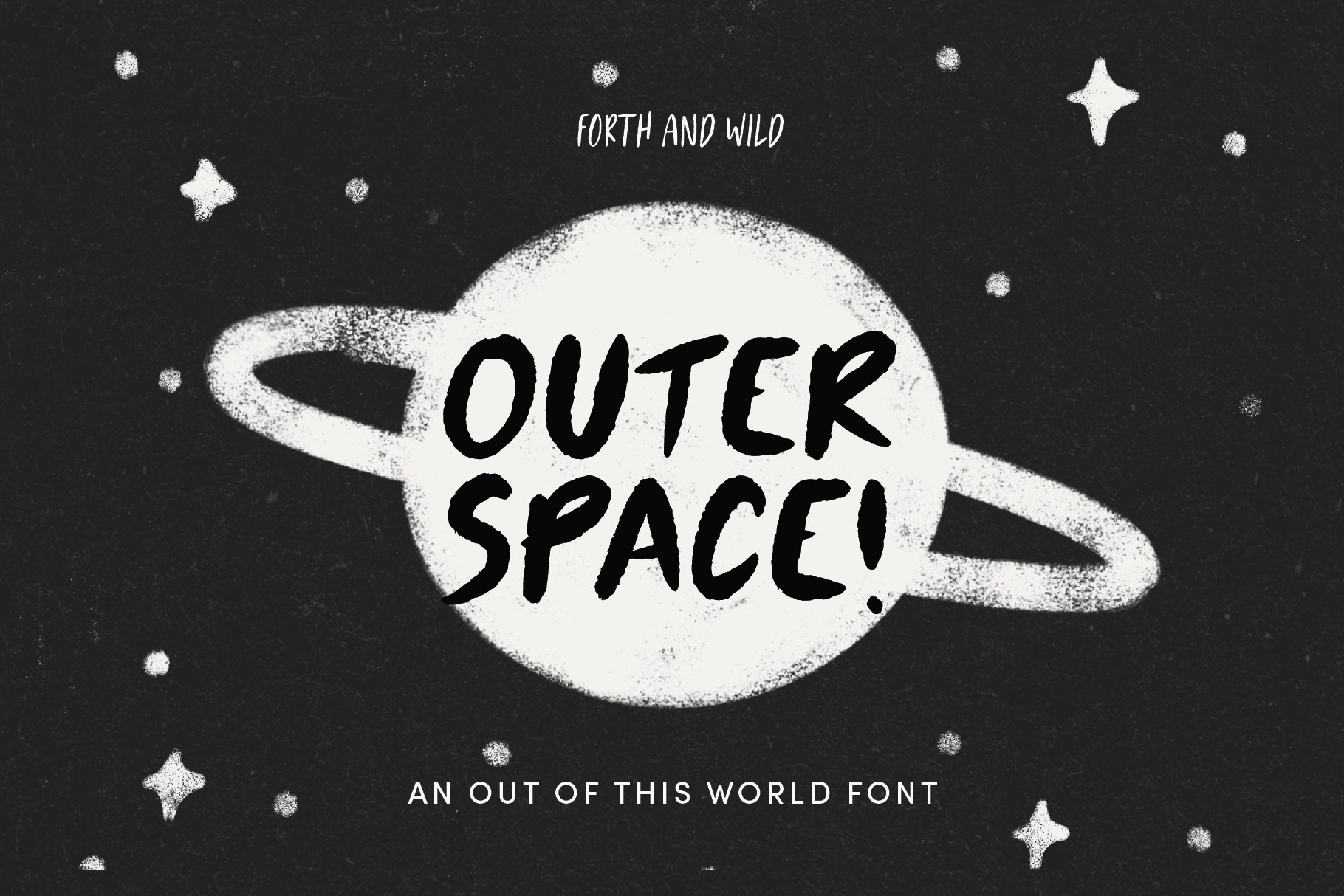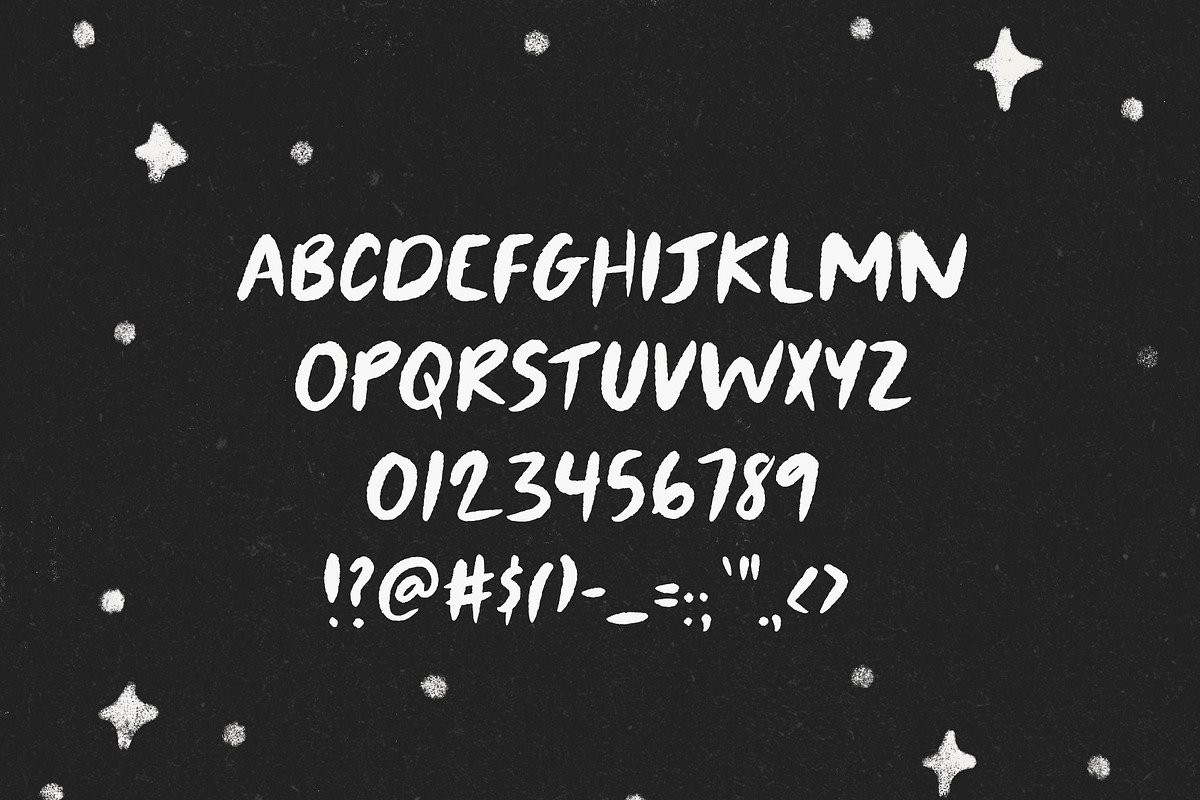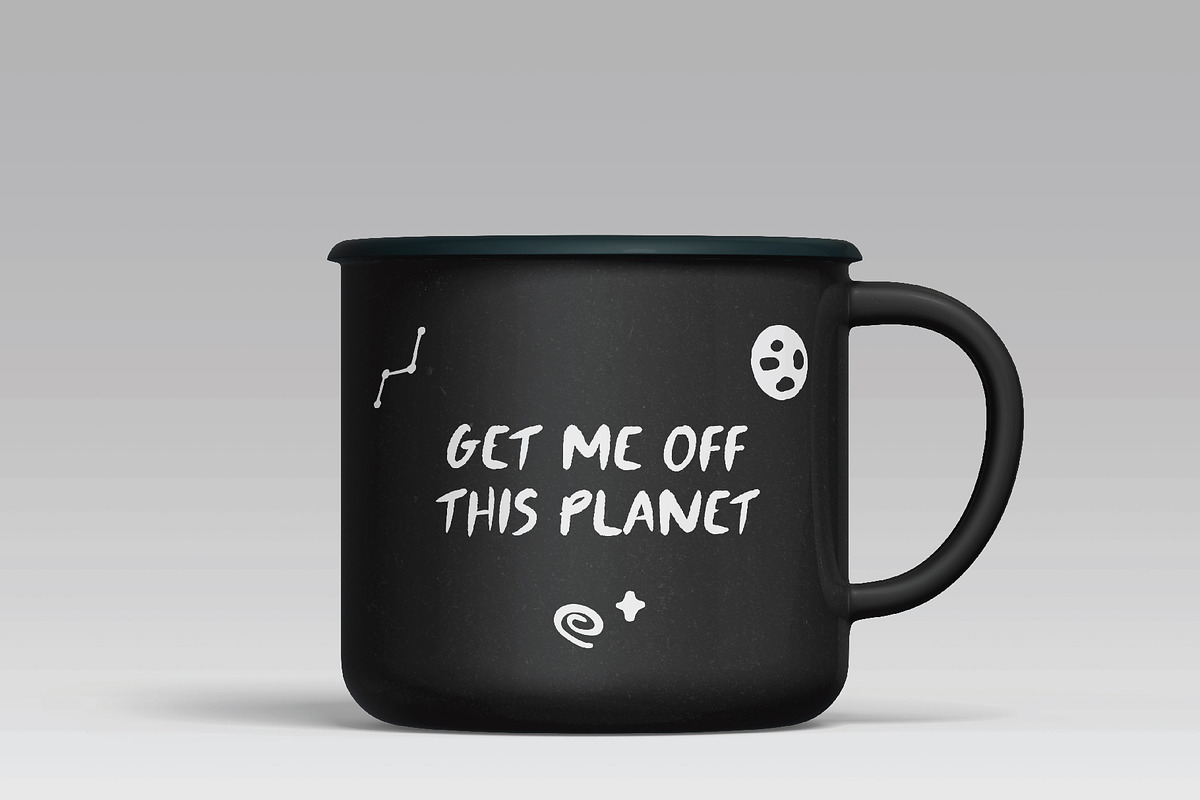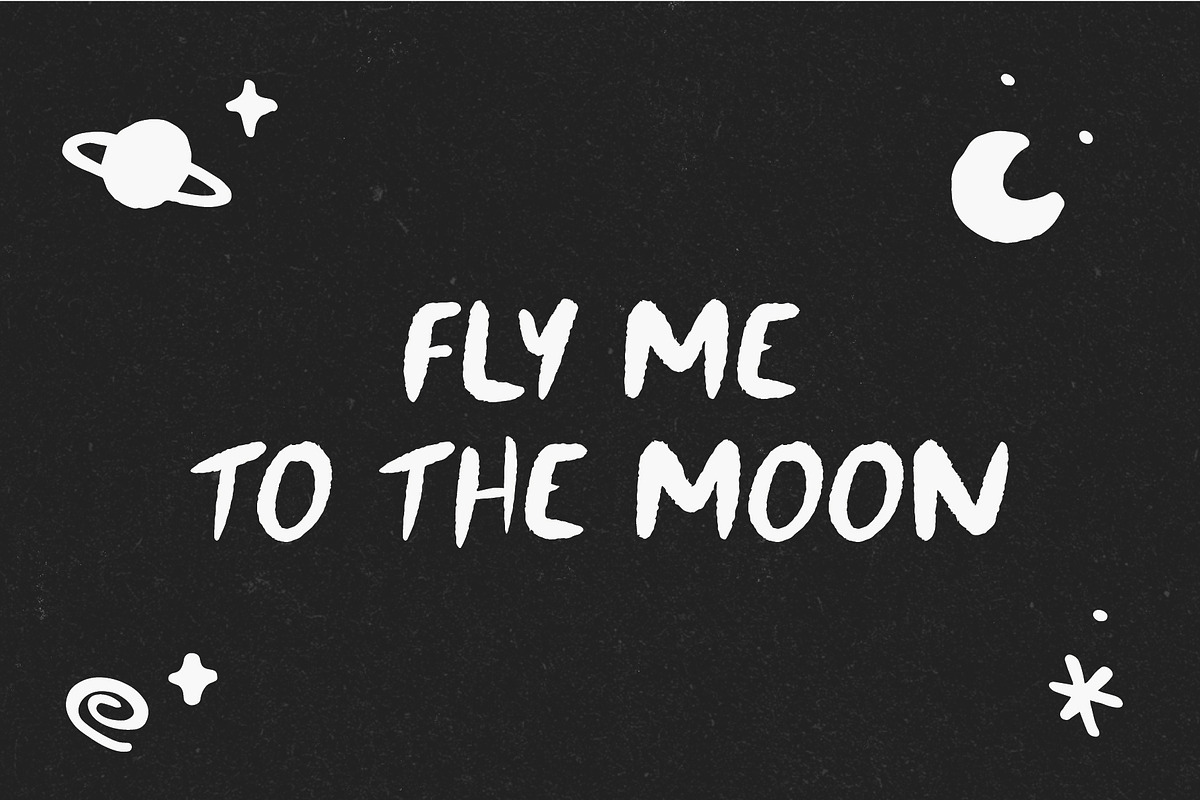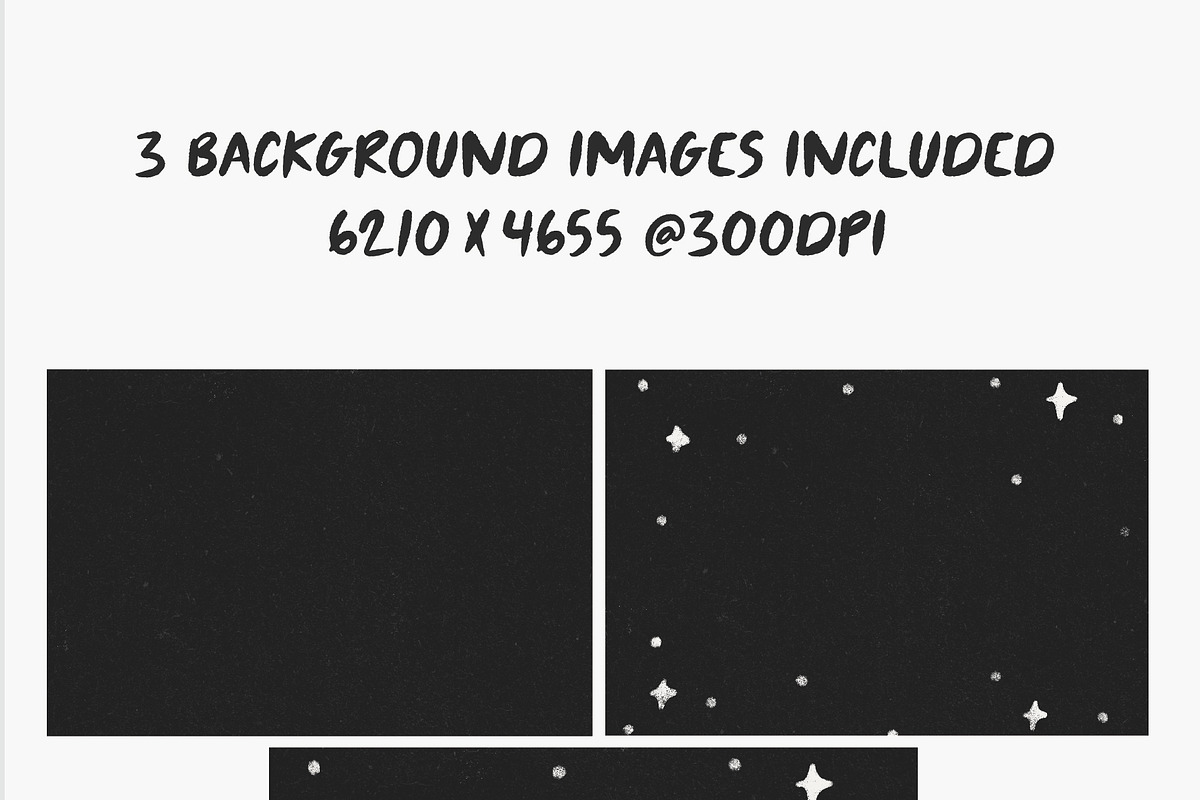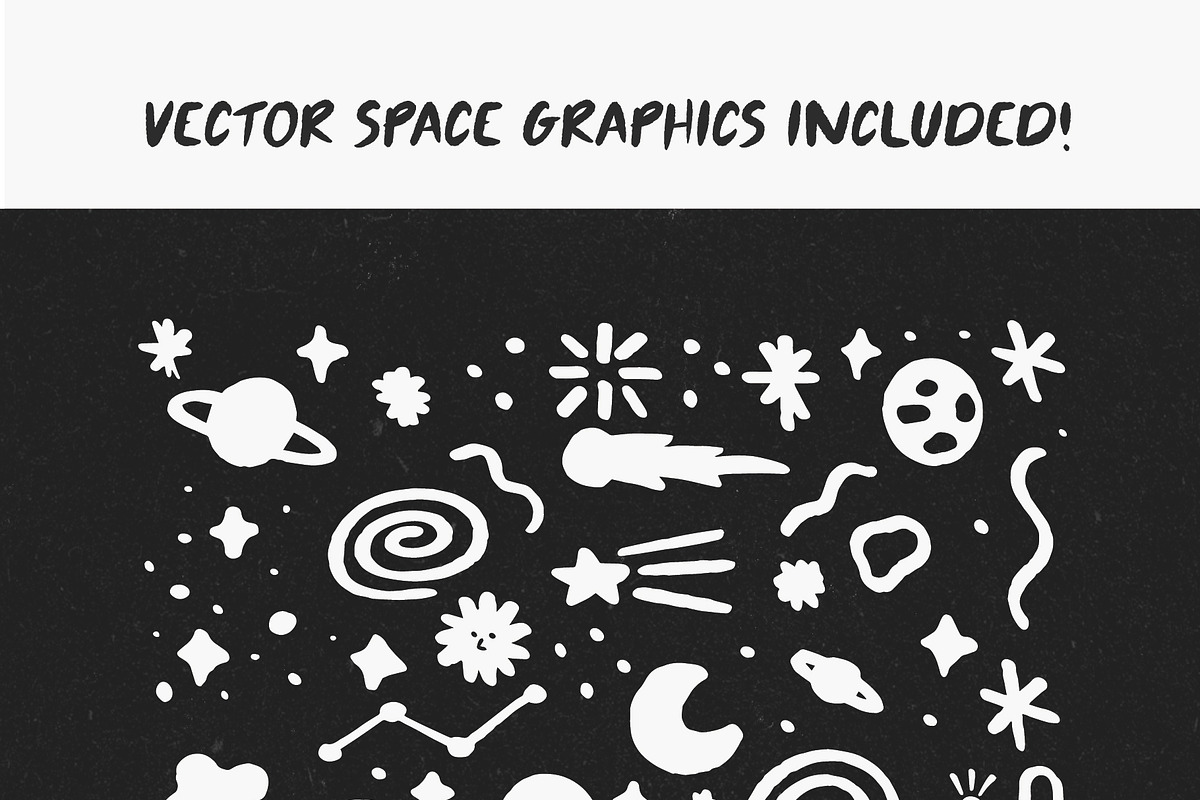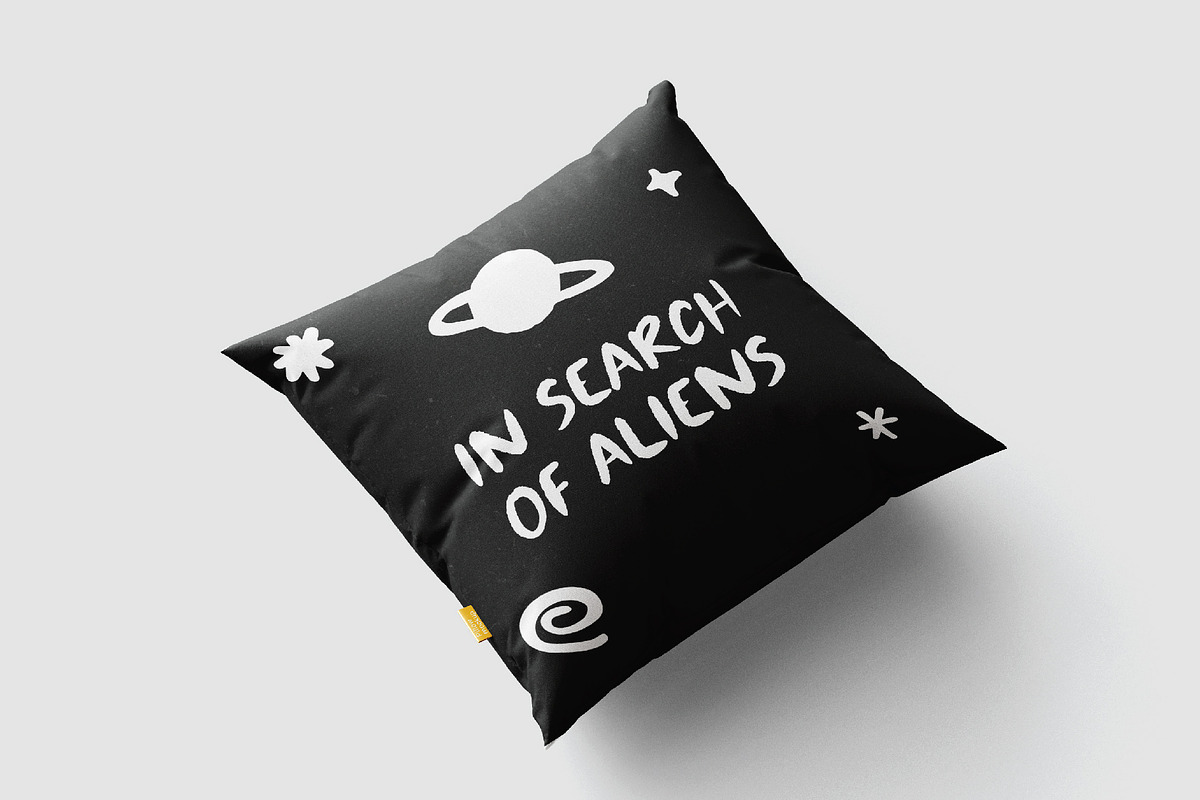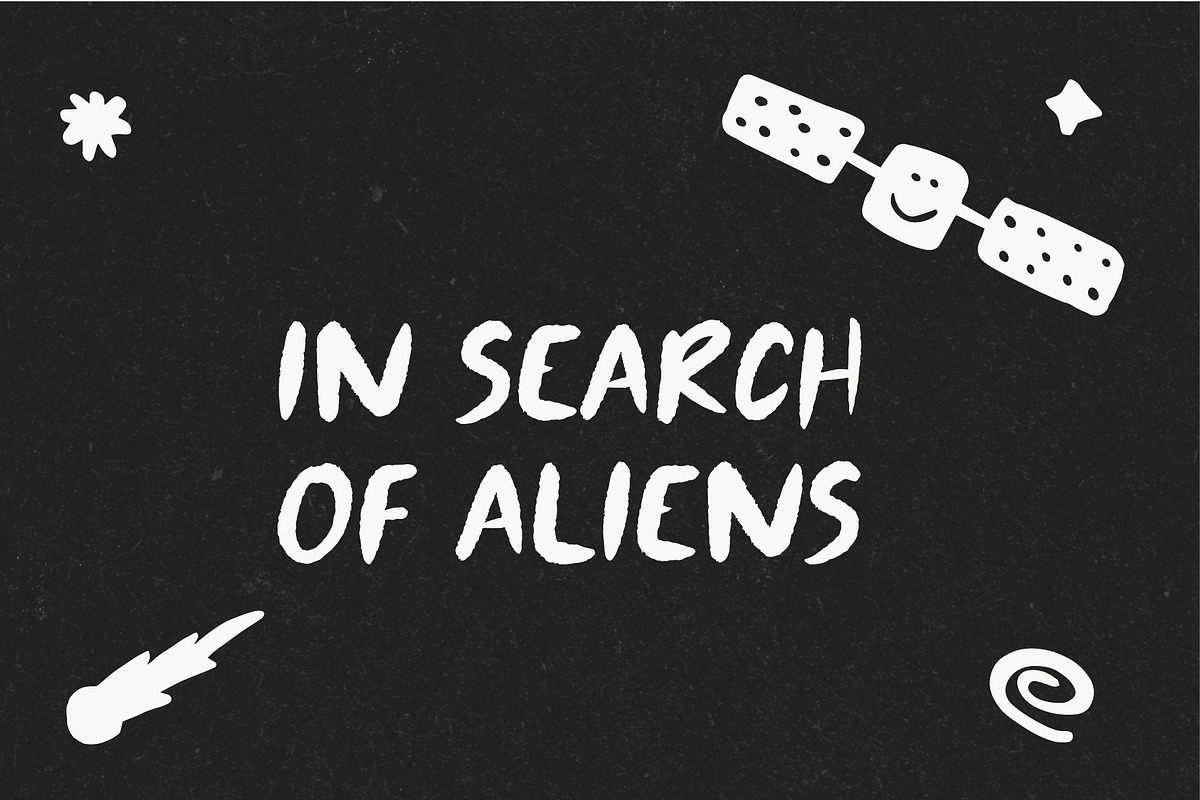
Outer Space Font + Graphic Kit
Outer Space font and graphics kit is a playful handwritten font that is perfect for adding a personal touch to your next project.
Outer Space is a handwritten UPPERCASE simple and bold display font. Outer Space display font works great for creating logos, quotes to share on Instagram, social media, and more! Please note the font only comes with what you see on the second image. Punctuation and symbols are limited.